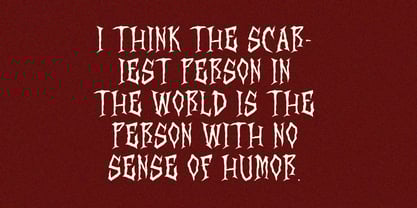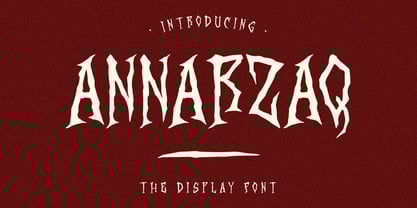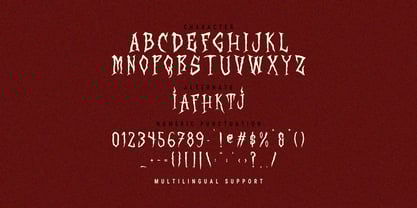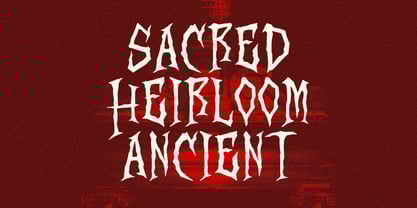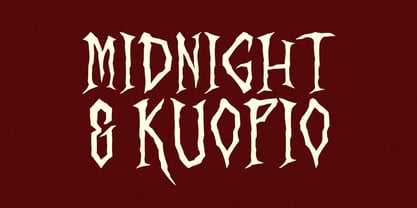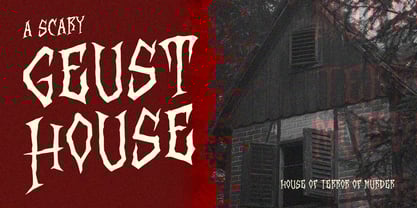
MC Annarzaq
by Maulana Creative
The MC Annarzaq Font Family was designed by Gilang Maulana and published by Maulana Creative. MC Annarzaq contains 1 styles. More about this family
Annarzaq is a display font. Bold stroke, fun character with a bit of alternates. To give you an extra creative work. Annarzaq font support multilingual more than 100+ language. This font is good for logo design, Social media, Movie Titles, Books Titles, a short text even a long text letter and good for your secondary text font with script or serif. Make a stunning work with Annarzaq font.